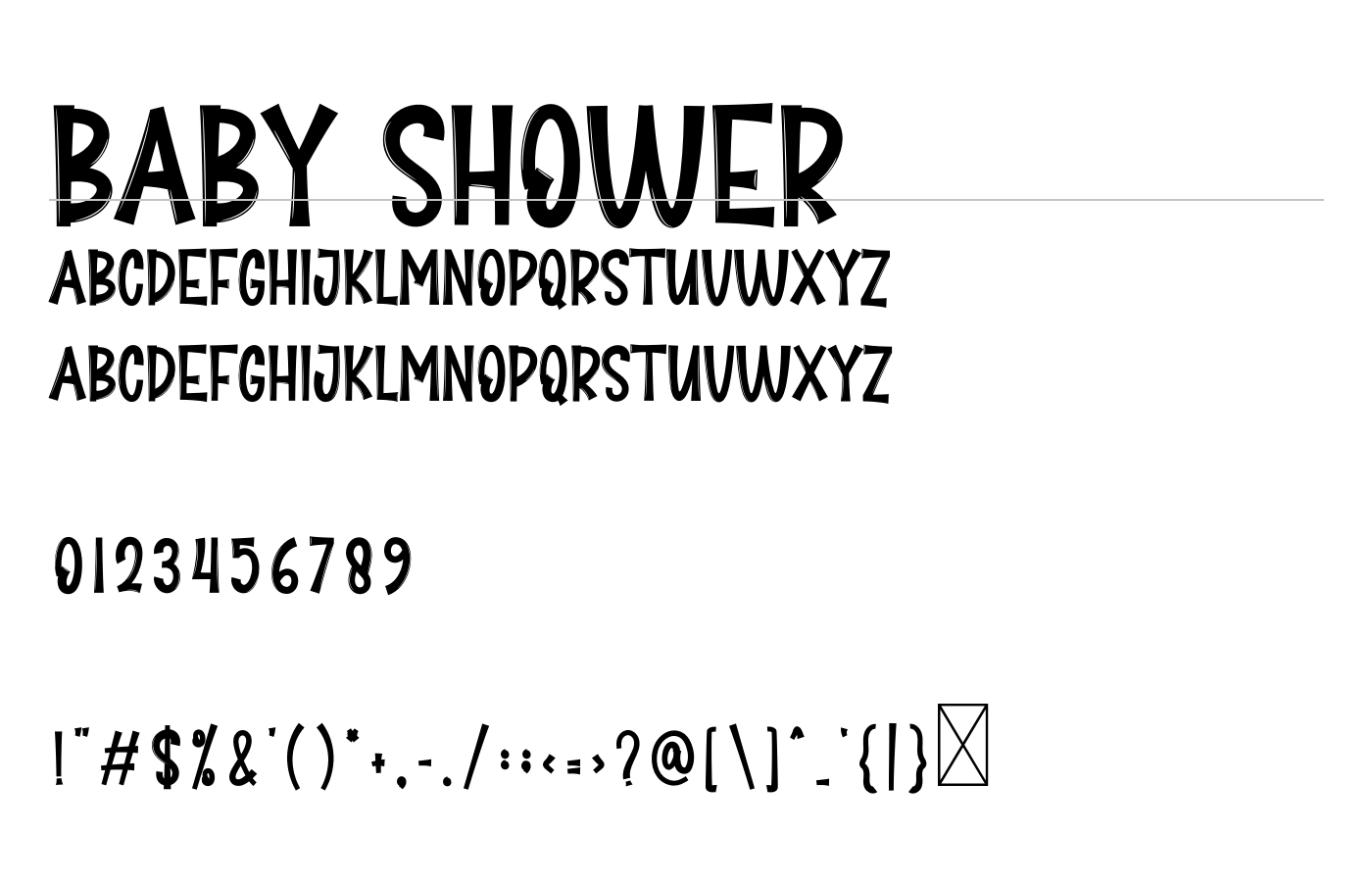
Baby Shower Font is a playful and charming sans serif typeface with a hand-drawn, slightly irregular style that adds personality and warmth. Its tall, narrow letterforms and varied stroke widths create a fun, informal feel, making it ideal for children's designs, casual invitations, and lighthearted branding. This font works best for headlines and decorative text where a friendly, approachable vibe is desired.
Baby Shower Font